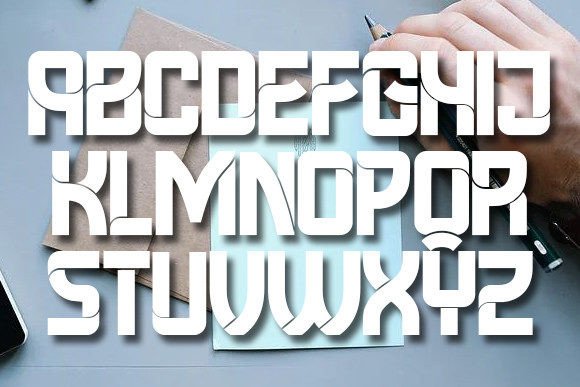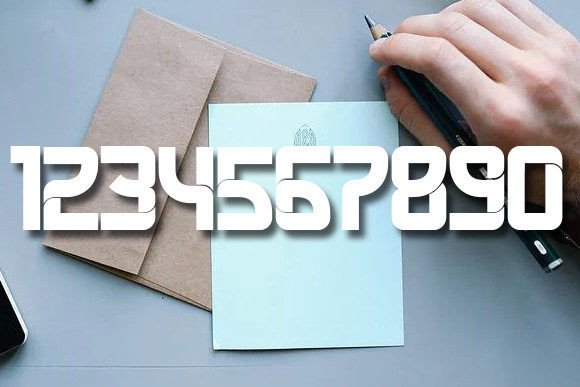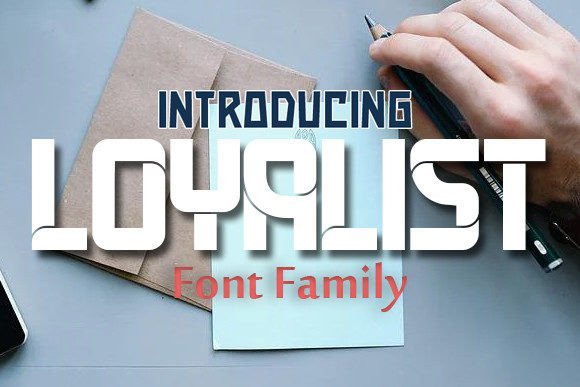
Introduction to Loyalist Font
Loyalist is a cool and stylish display font.
Why Choose Loyalist Font?
Loyalist Font offers exceptional quality and versatility, making it a valuable addition to your design toolkit. Whether you’re creating for personal projects or commercial use, Loyalist Font delivers professional results.